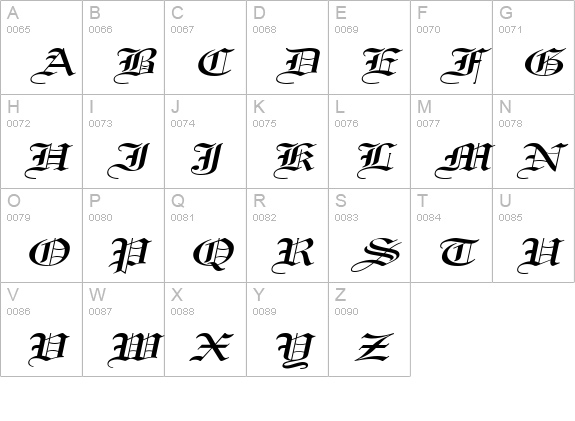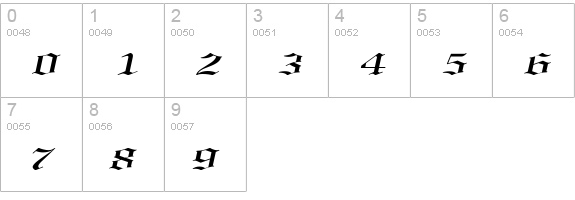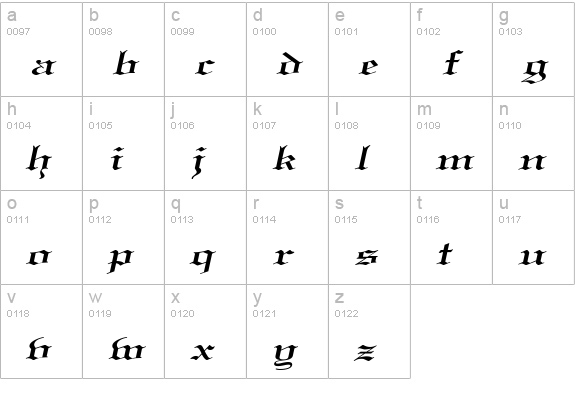
CertificateExtended Italic is a distinctive, italic variant in the CertificateExtended typeface family \xE2\x80\x94 well suited to design and typography projects.
The CertificateExtended Italic font is a stylish and elegant typeface that exudes sophistication and class. With its sleek and slanted design, this font is perfect for adding a touch of distinction to any project or design. Whether you're creating certificates, invitations, or other formal documents, the CertificateExtended Italic font will elevate your work to the next level. Best of all, this font is available for free download at FontsMarket.com. Simply visit the website to access this beautiful typeface and enhance your projects with its unique charm. Don't miss out on the opportunity to add the CertificateExtended Italic font to your collection and elevate your designs with its timeless appeal.